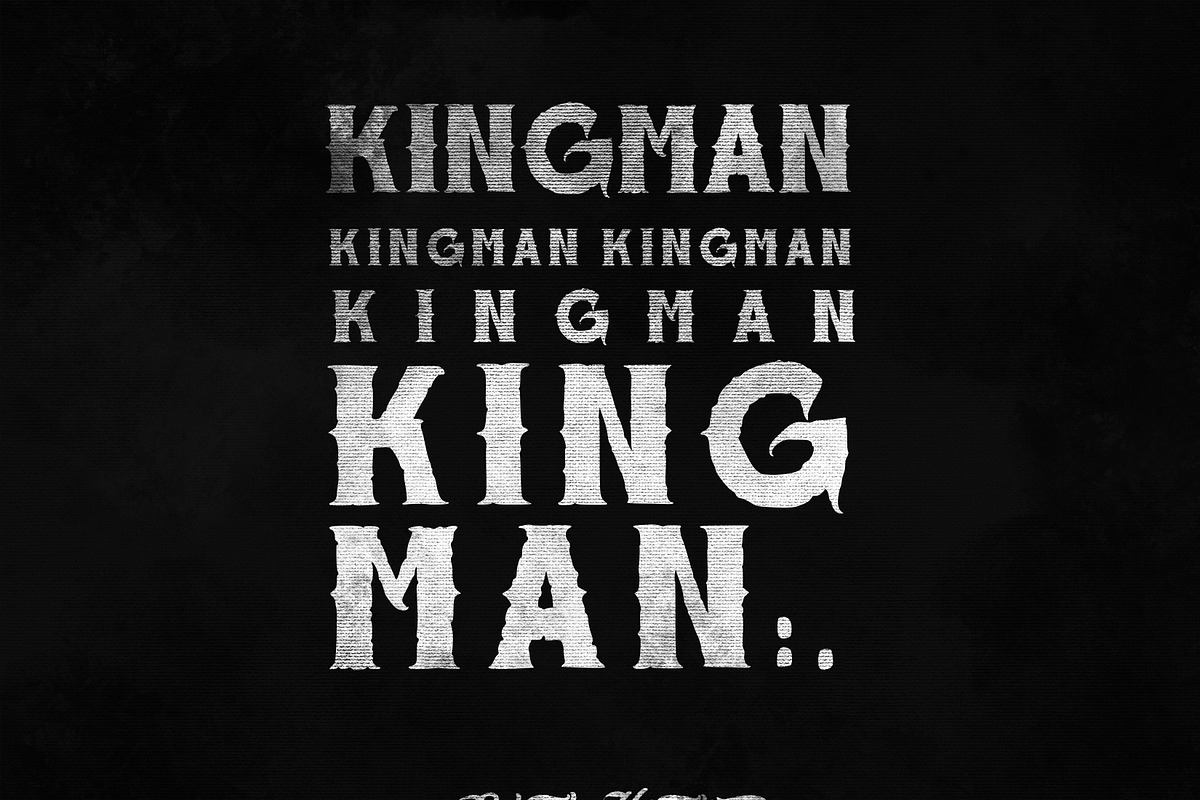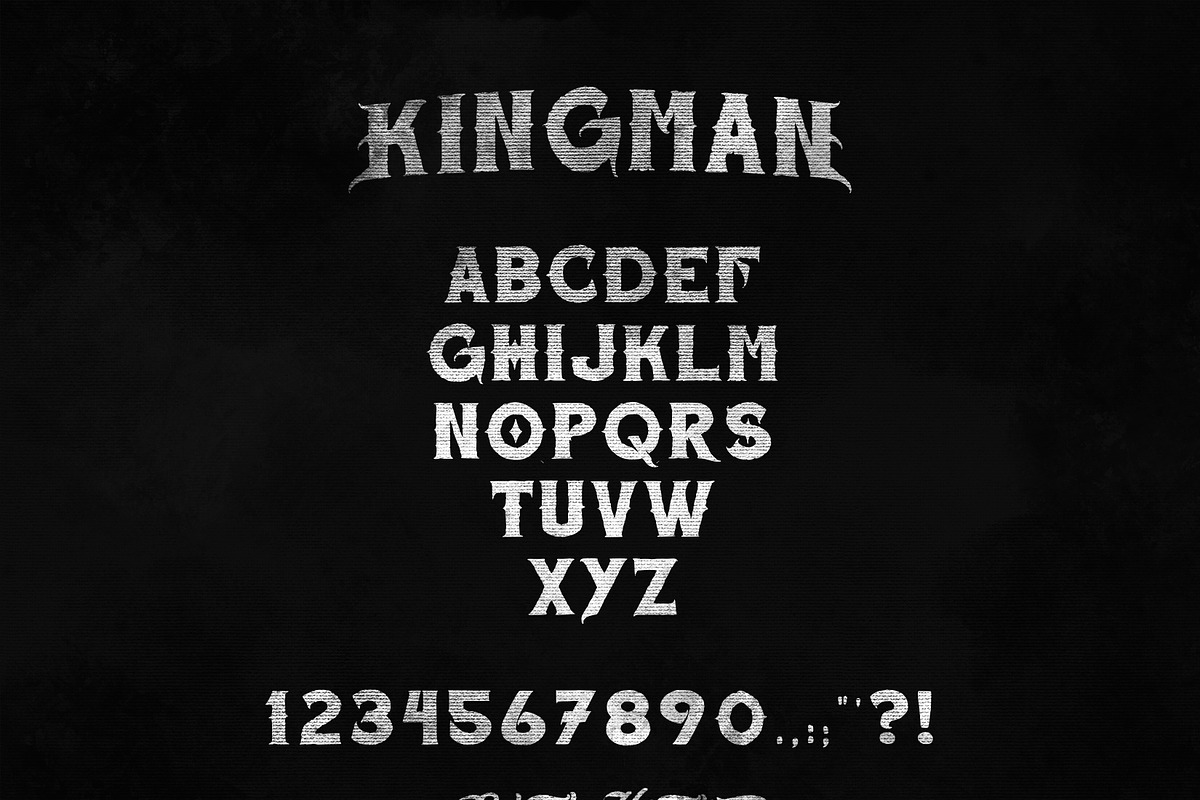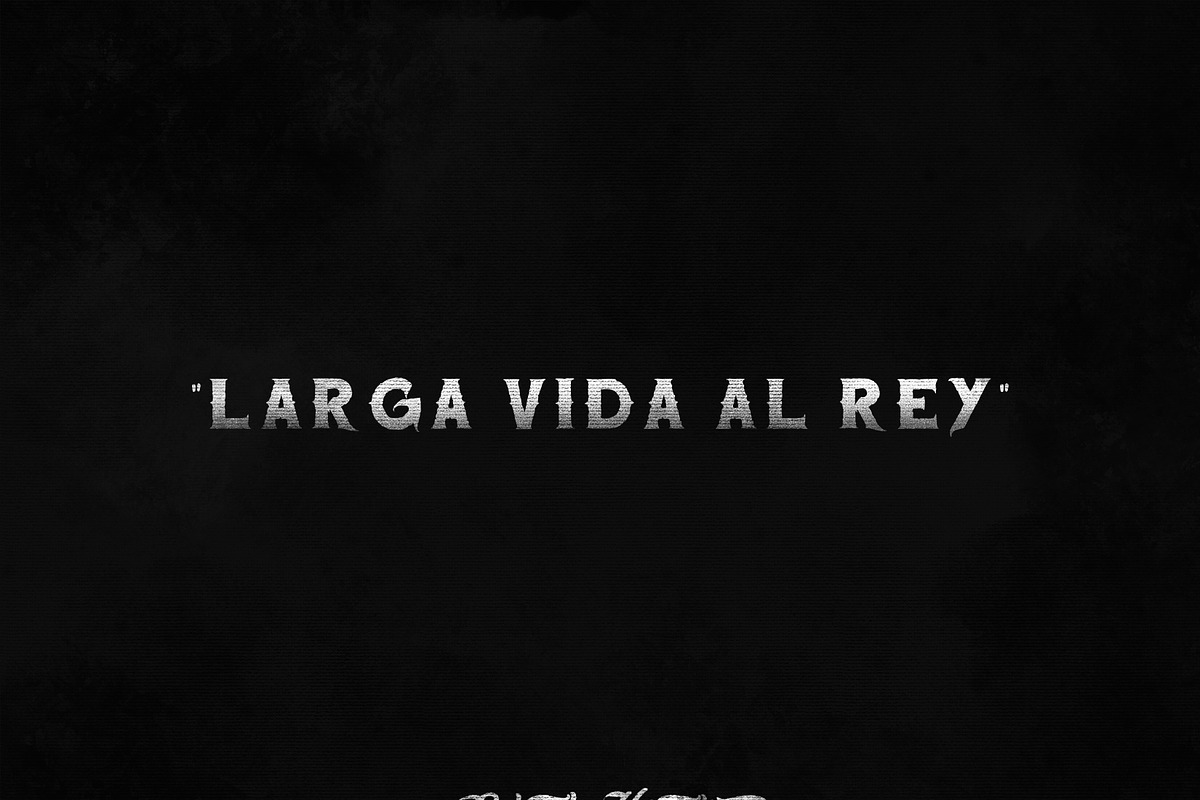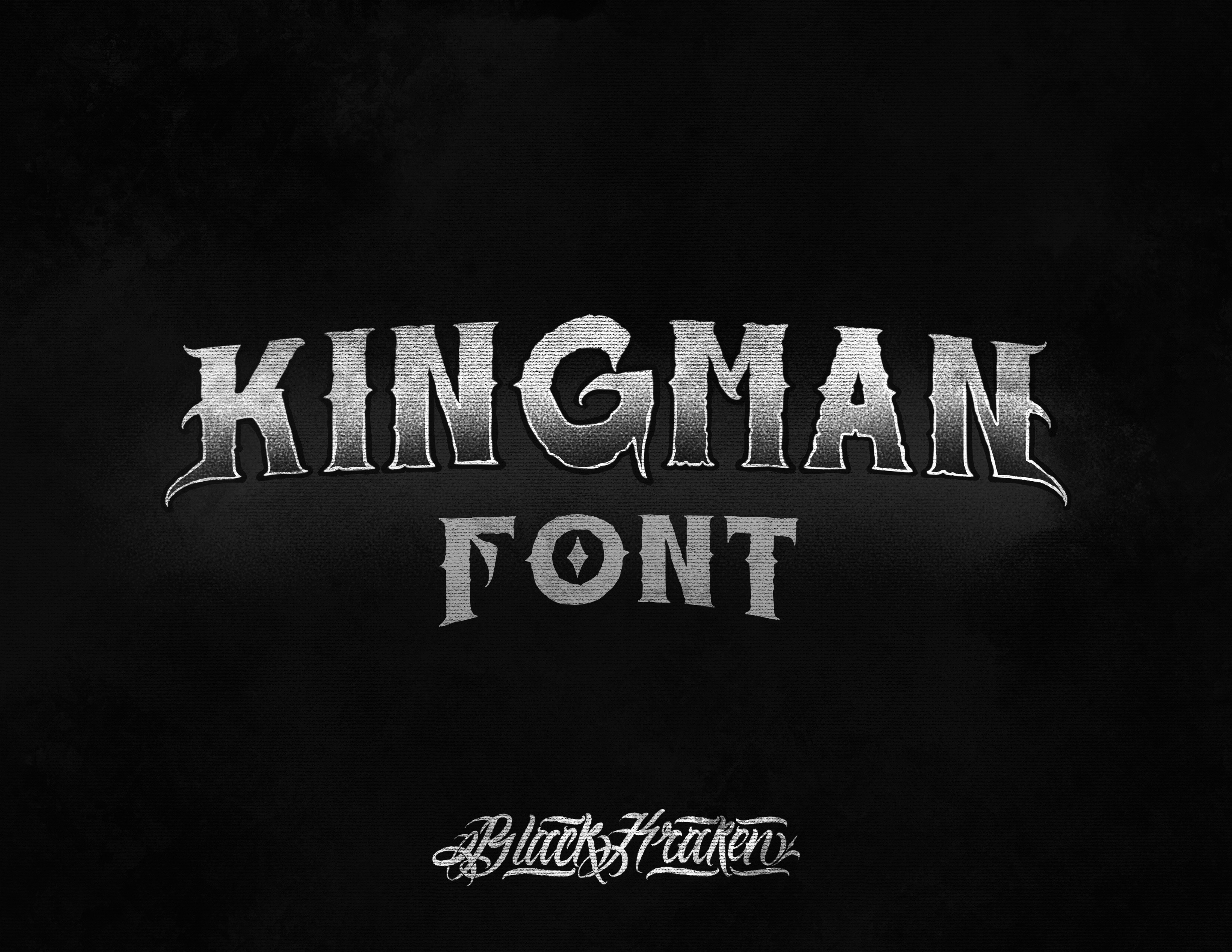
Kingman font - black kraken
Kingman font is the modern slab serif that takes inspiration from urban design and vintage style. With a unique style that you can apply in your design project. This font made with tenacious basic shapes, power visuality, old-school movement, and modern minimal style.